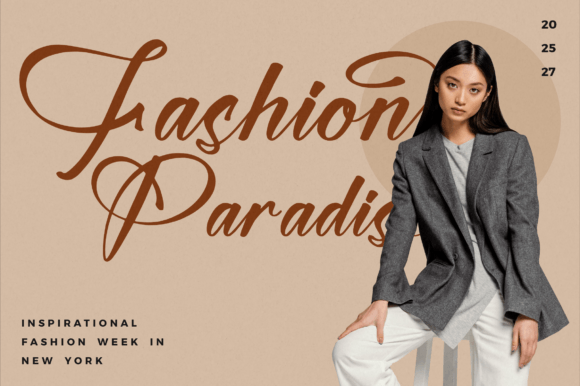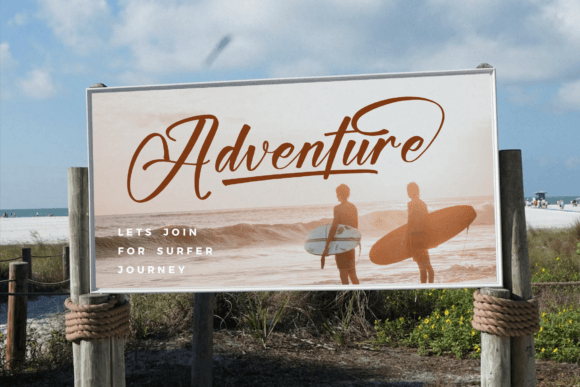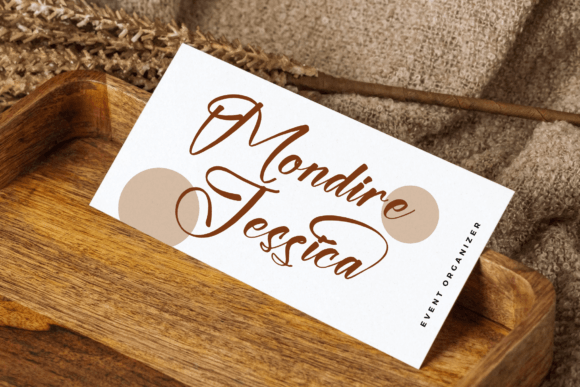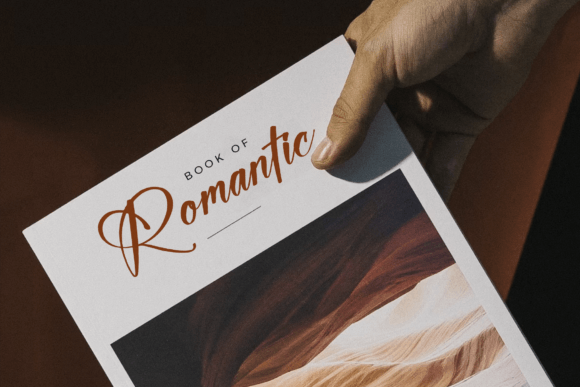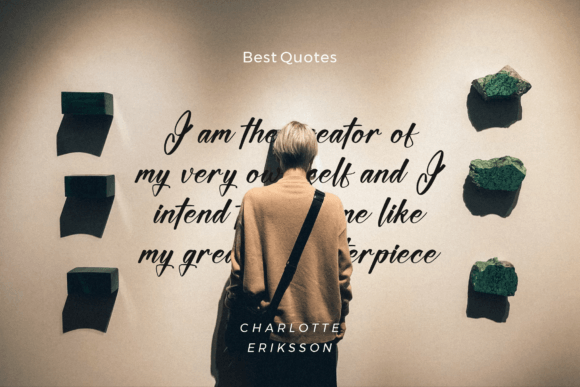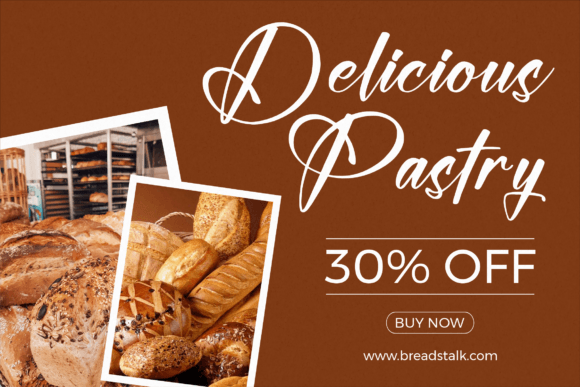
Unlock the Art of Beautiful Script
Do you remember the moment when you first saw a beautifully crafted handwritten font? The way it made your heart skip a beat and your imagination run wild? That’s exactly what we’re about to share with you – the Alodinya Silvestte Font, a modern calligraphy brush that will elevate your creative projects to the next level.
With its versatility and wide range of applications, the Alodinya Silvestte Font is perfect for designers who want to add a touch of elegance and sophistication to their work. Whether you’re creating logos, branding projects, homeware designs, or anything in between, this font is sure to impress. Its PUA encoded feature allows for seamless access to all the amazing glyphs and ligatures, making it a valuable addition to any designer’s toolkit.
- Unique Characteristics: Elegant, sophisticated script font with beautiful connections and subtle flair, ideal for wedding invitations, certificates, and other special occasions
Designer Review: Alodinya Silvestte Font
First impressions count, and Alodinya Silvestte Font caught my eye with its elegant, hand-drawn feel ✨. The font’s subtle imperfections and nuanced line variations evoke a sense of organic charm, making it perfect for creative, high-end projects. I appreciate how the font’s unique style doesn’t scream “quirky” or “experimental” – instead, it offers a sophisticated, artistic touch that’s hard to resist.
One area where Alodinya Silvestte excels is in its versatility. The font family includes a range of weights, from Light to ExtraBold, allowing designers to tailor the look to suit their needs ✨. The accompanying italics and script styles add an extra layer of depth, making it easy to create visually appealing typography. Additionally, the font’s OpenType features enable advanced typographic effects, such as swashes and ligatures.
However, I do have some reservations about the font’s limitations ⚠️. While the design is certainly unique, it may not be the best fit for projects requiring a more neutral, legible typeface. The font’s aesthetic is so distinctive that it may overpower the surrounding design elements, which could be a concern for designers working with tight budgets or strict brand guidelines.
In terms of overall impression, I’d say Alodinya Silvestte is a solid choice for designers seeking a high-end, artistic font ✨. While it may not be suitable for every project, its unique charm and versatility make it a compelling option for those looking to add a touch of sophistication to their designs.
Pros:
- Elegant, hand-drawn feel
- Unique, artistic touch
- High-end, creative feel
- Range of weights and styles
- OpenType features for advanced typography
Cons:
- Might be too distinctive for neutral, legible projects
- May overpower surrounding design elements
- Tight budgets or strict brand guidelines might limit use
The Alodinya Silvestte font is ideal for creative projects that require a unique and elegant touch. Use it for:
– Digital art and graphics
– Print materials such as business cards and brochures
– Any project that requires a sophisticated and stylish font.